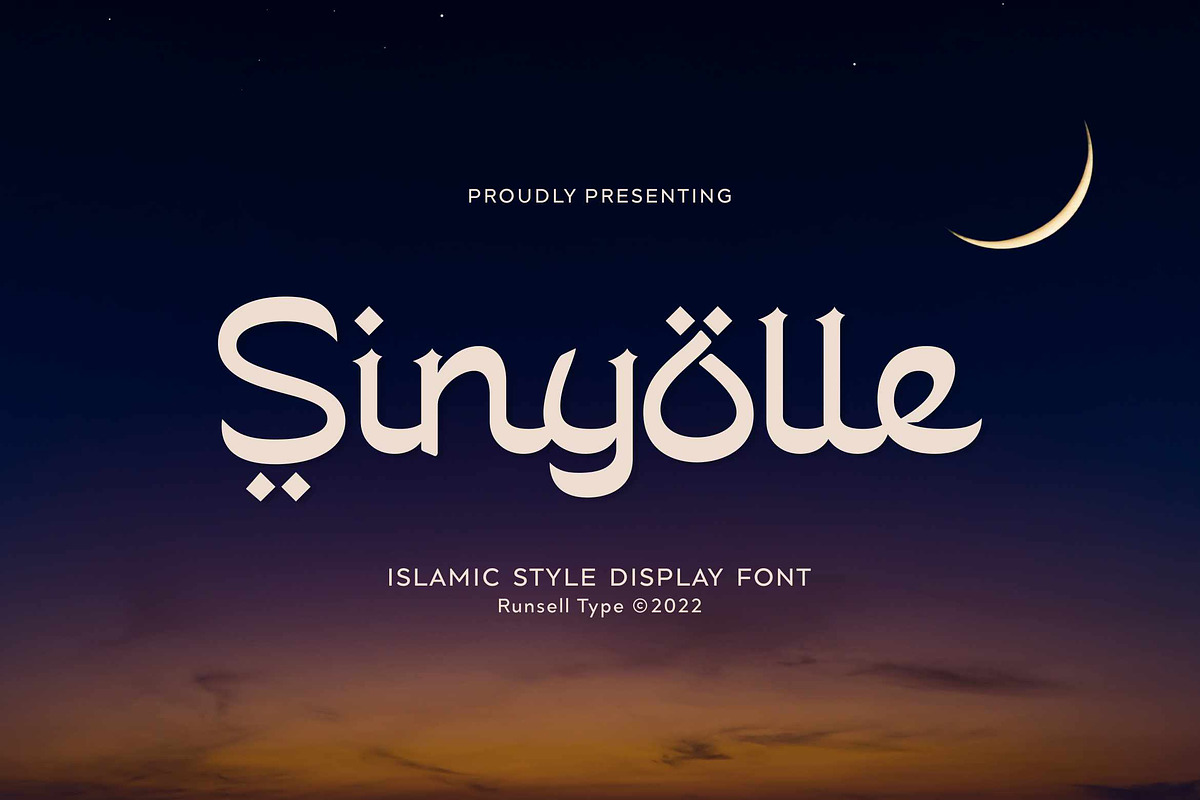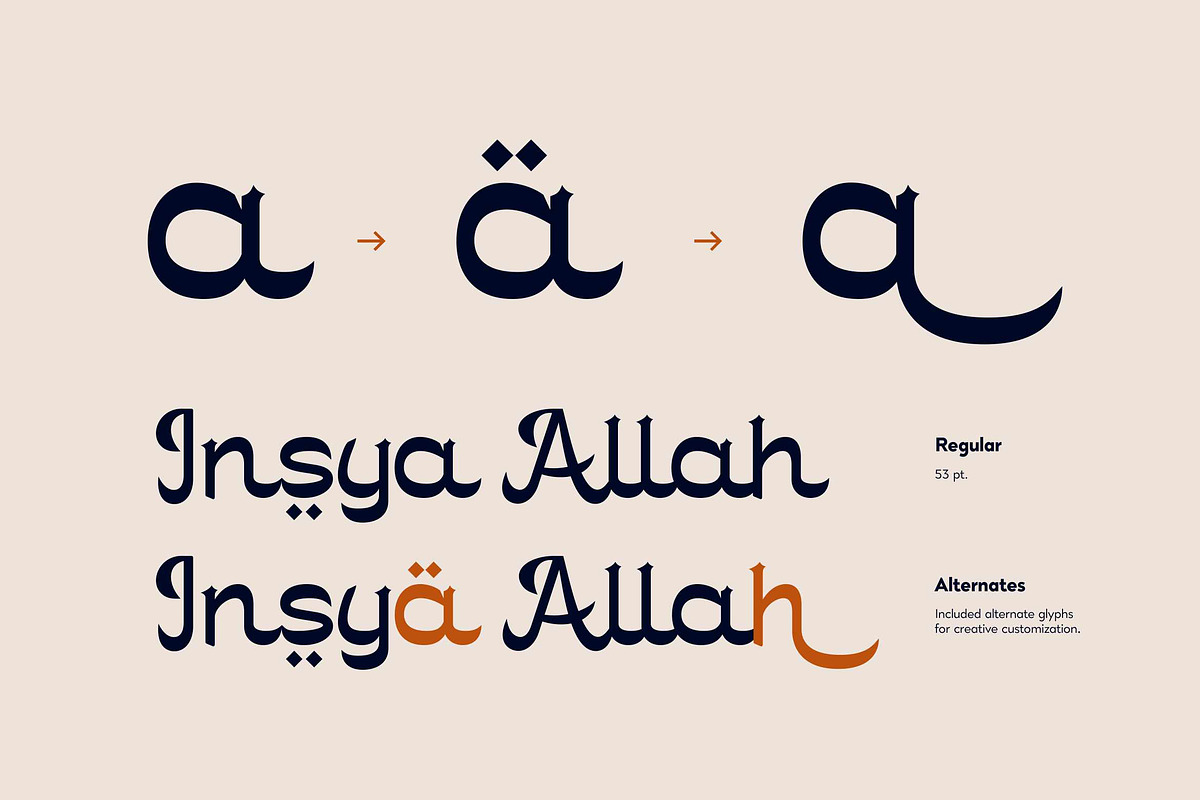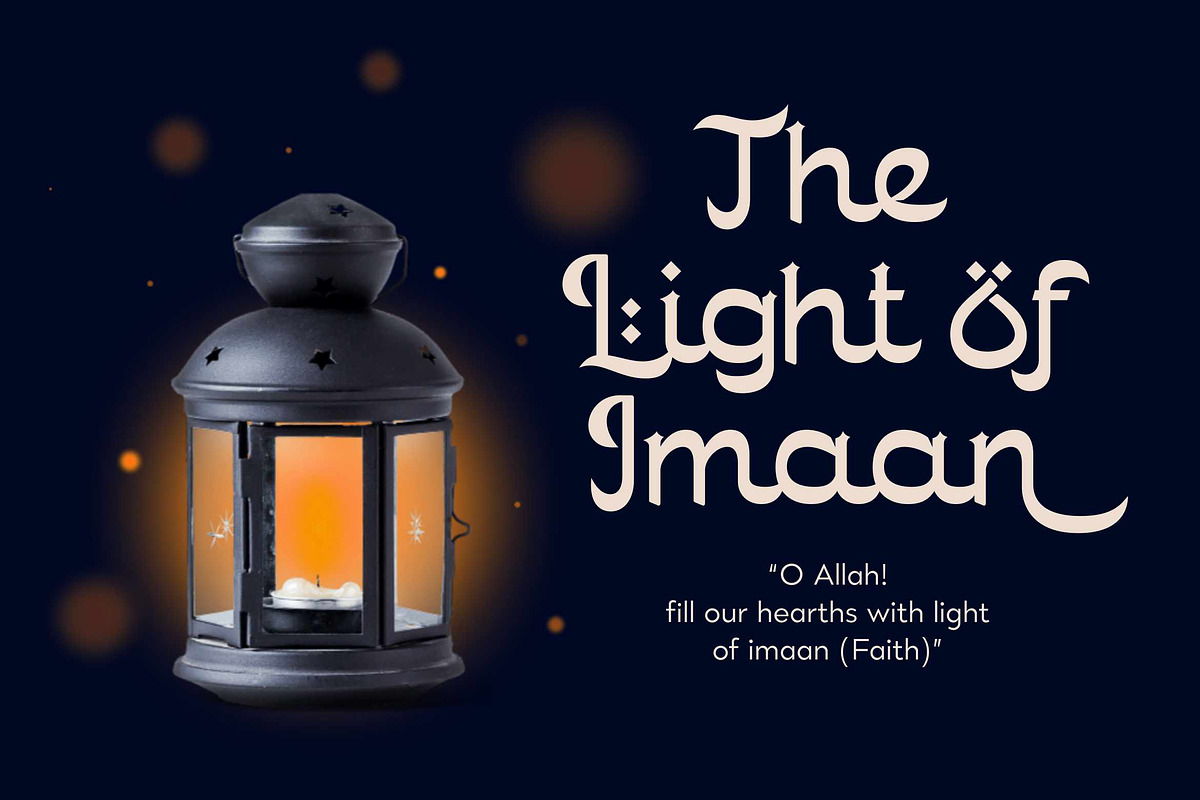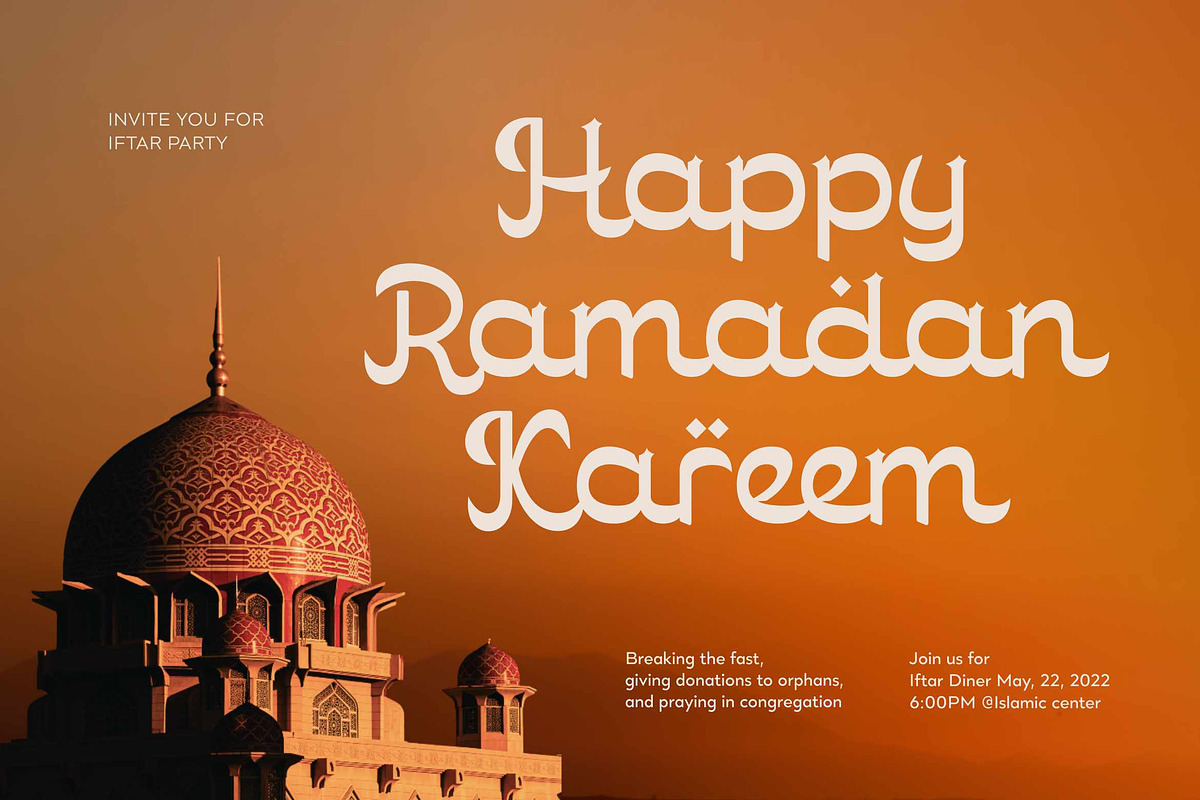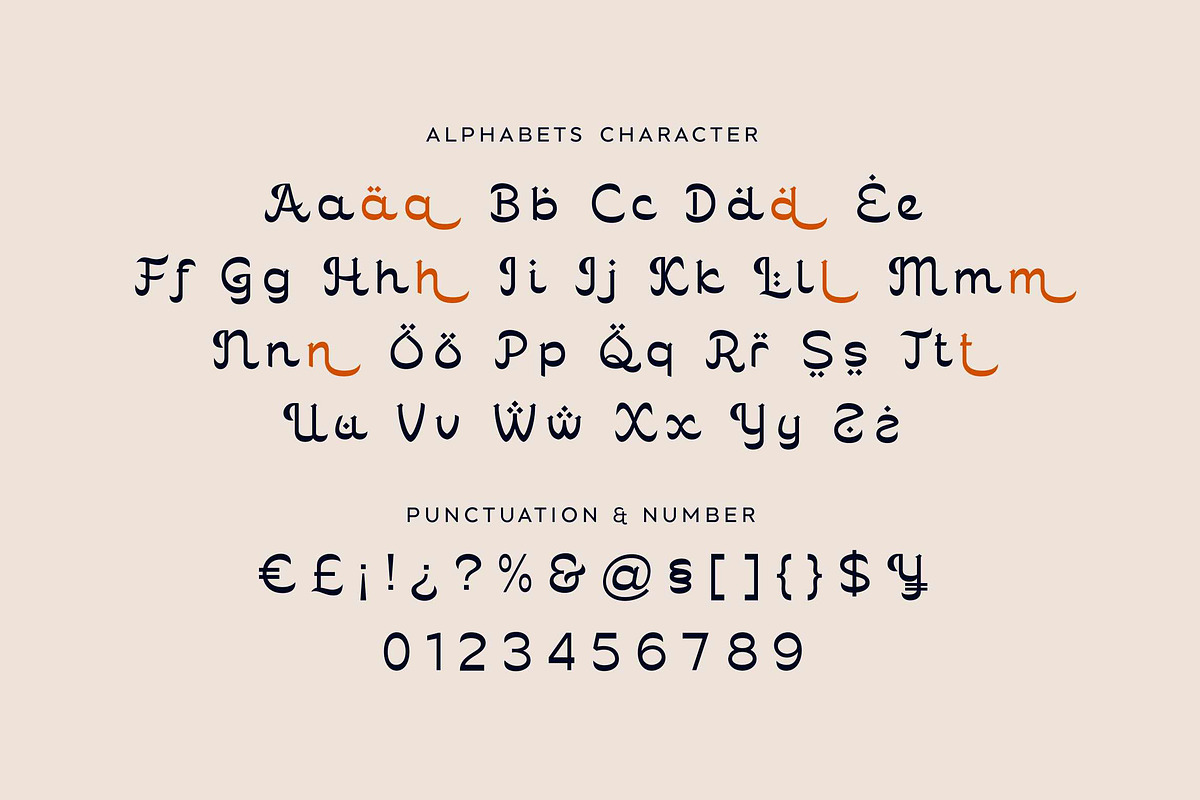
Sinyolle - Arabic Font Style
Sinyolle - Arabic Font Style is perfect for many of your projects like logos & branding, photography, invitations, watermarks, advertisements, product designs, stationery, wedding designs, labels, product packaging, special events and much more.